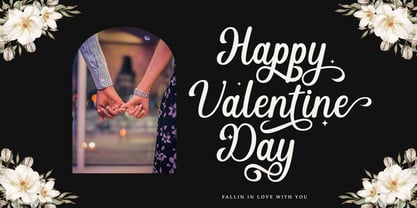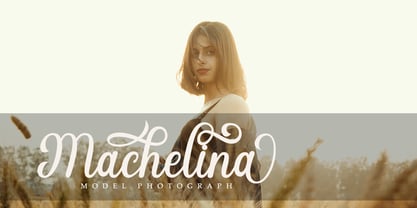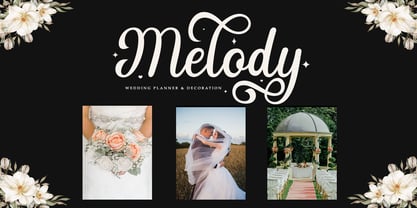
Renatha
by Tertoecreative
The Renatha Font Family was designed by khaidir and published by Tertoecreative. Renatha contains 1 styles. More about this family
Renatha is a gorgeous and delicate script font. It works simply as a stylish text overlay onto a background image or anything that requires a touch of elegance.
Renatha is PUA encoded which means you can access all of the glyphs and swashes with ease.